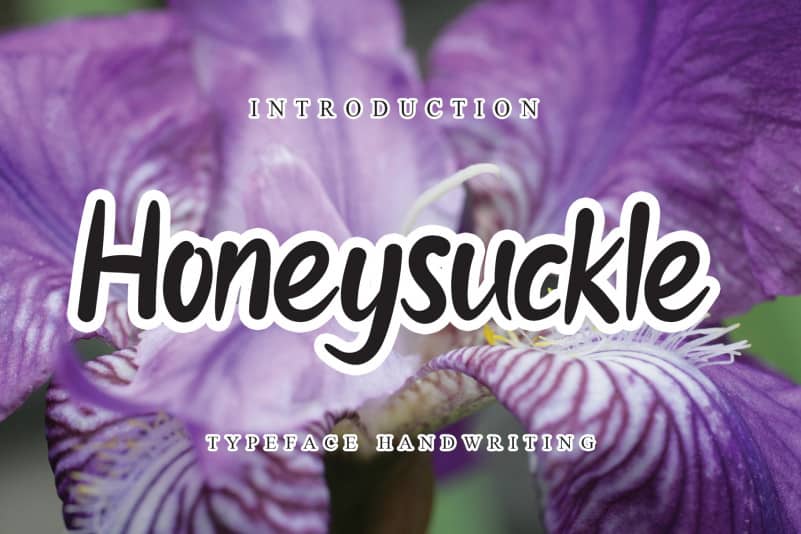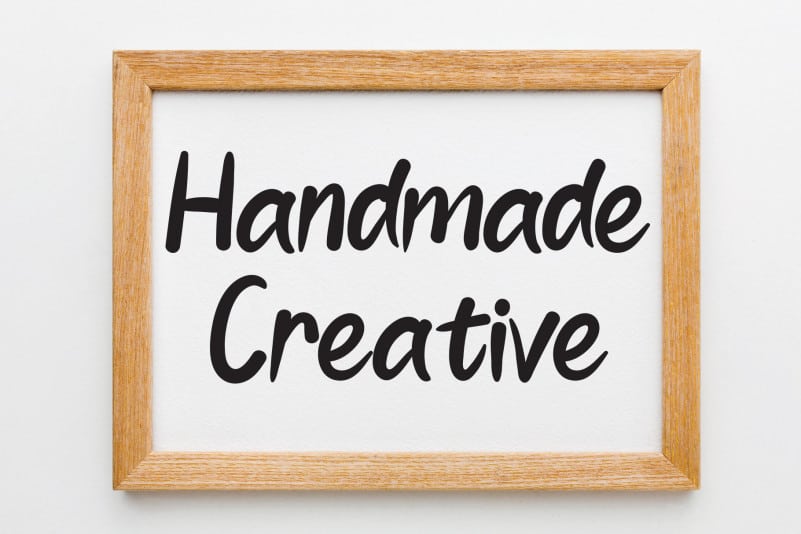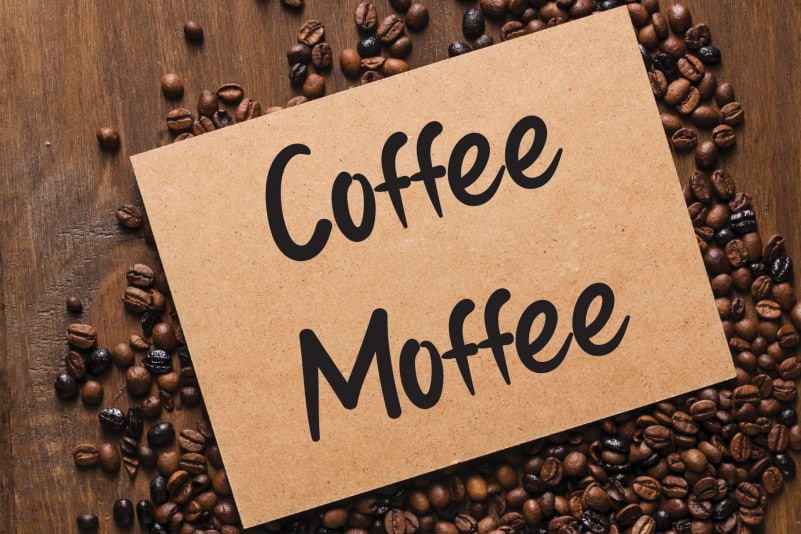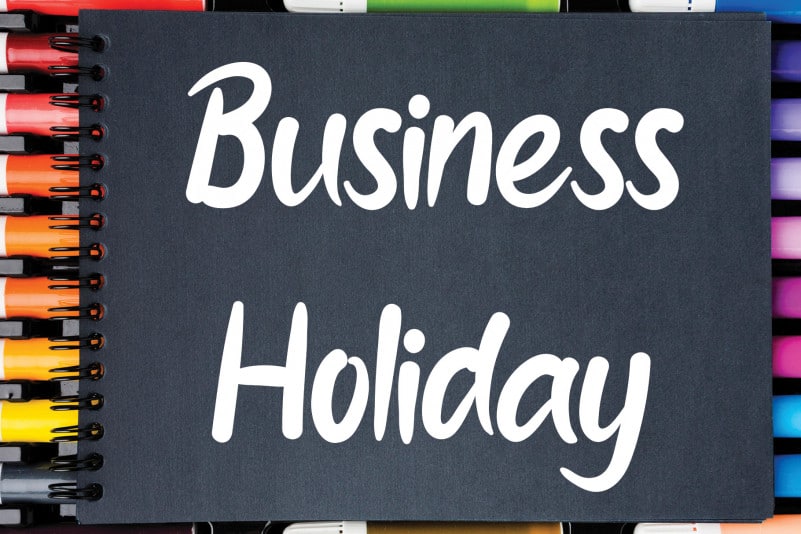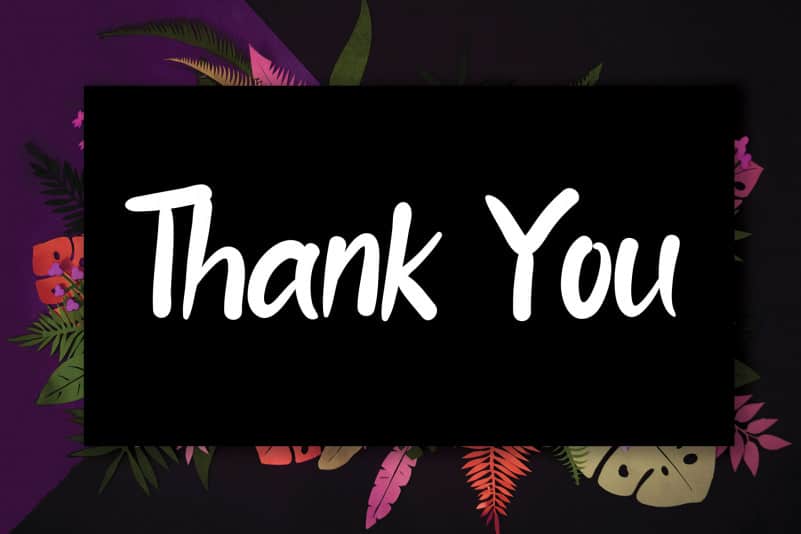
Honeysuckle Flower Script Font
Honeysuckle Flower Script Font is a simple and natural handwritten font. Casual and adept, this font will become your go-to choice in no time!